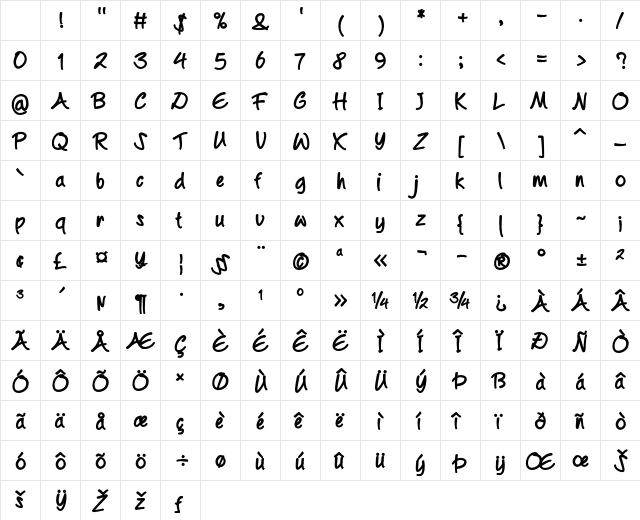
Complete Aribola Bold glyph index. Displaying only characters natively supported by Aribola Bold font.
Aribola is a composed and adaptable typeface that performs quietly and consistently across a wide range of design contexts. Its bold stroke weight gives it real presence on the page.